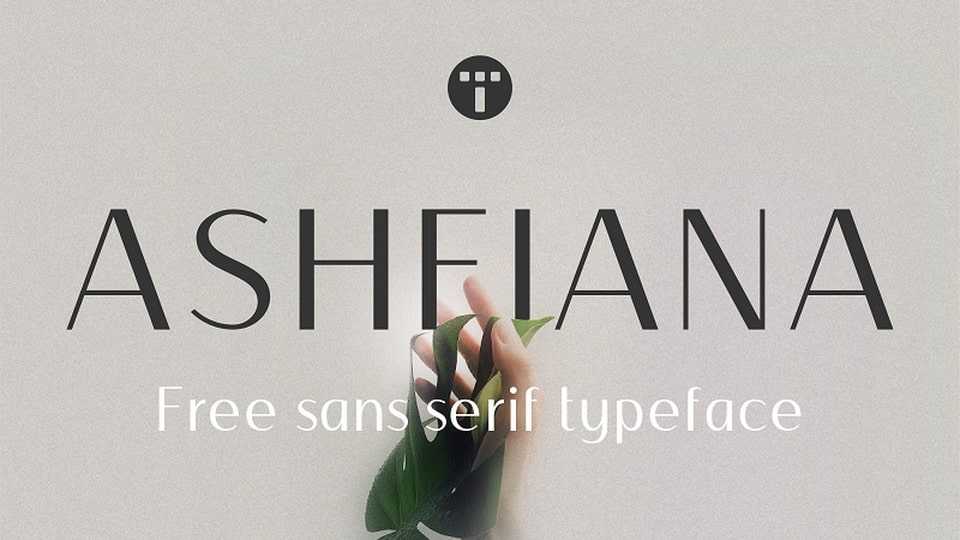
Download Ashfiana font, a high contrast sans serif typeface with an elegant and modern look. Ashfiana font is a great choice for logo, branding, editorial use, invitation and cards, text blocks.
Designer: Toufique Islam